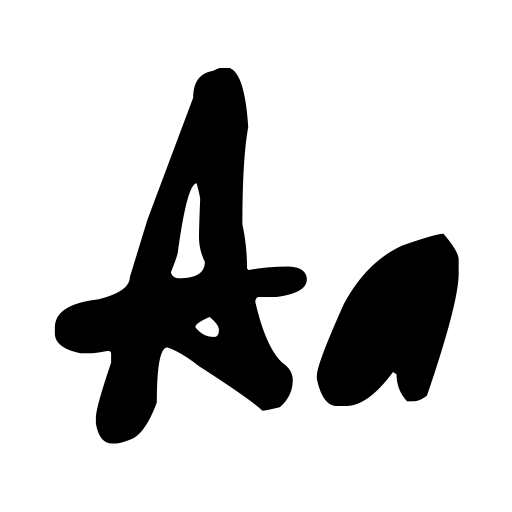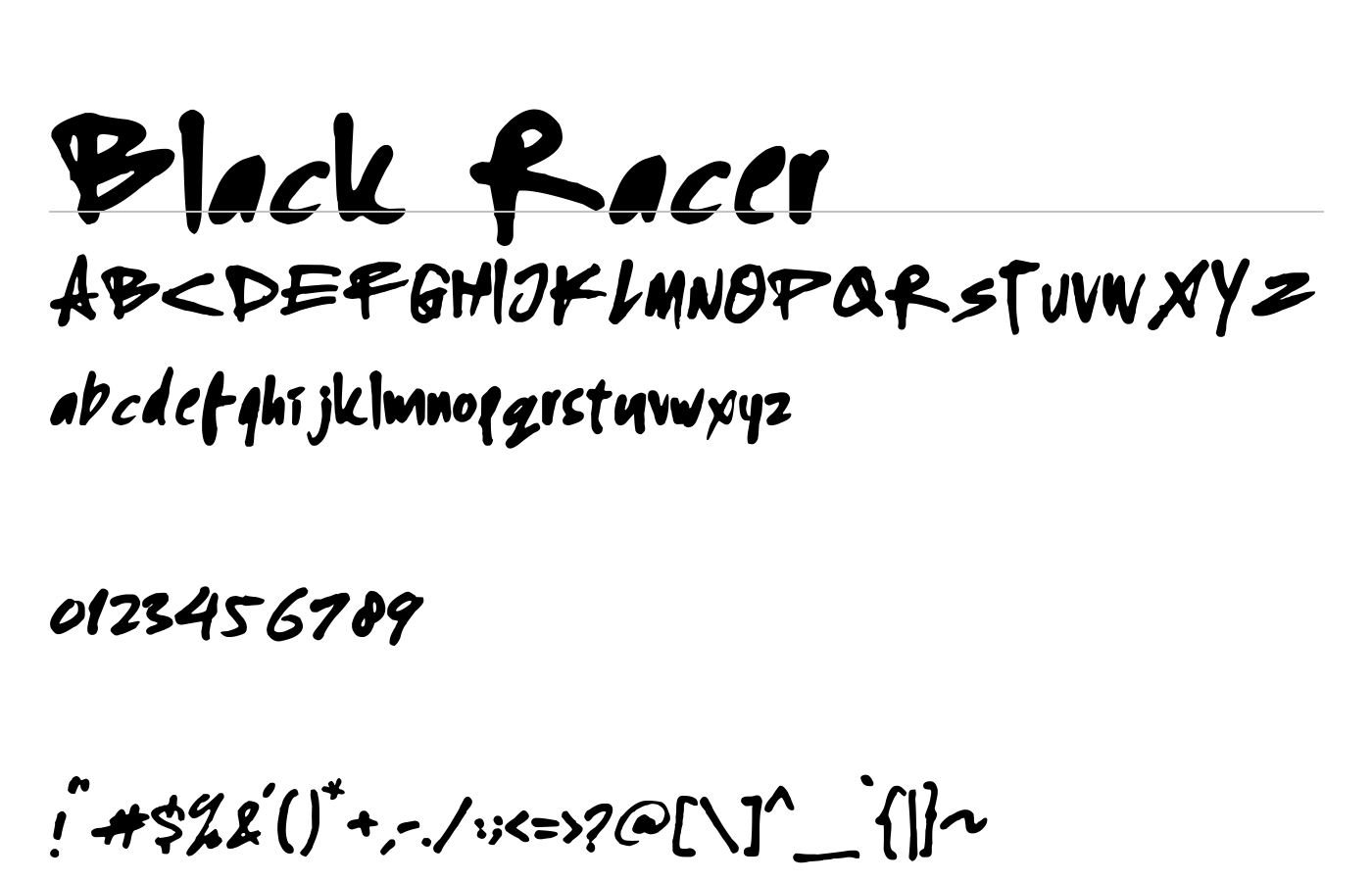
Black Racer is a bold, casual script font with a hand-drawn, brushstroke style that gives it an energetic and informal feel. Its uneven, dynamic strokes and playful letterforms make it ideal for creative and youthful branding, posters, and headlines where a lively, personal touch is desired. This font works well to convey spontaneity and artistic flair, standing out in designs that aim to be fun and expressive.
Black Racer Font